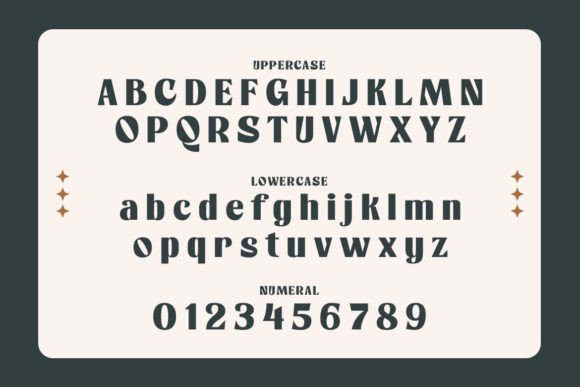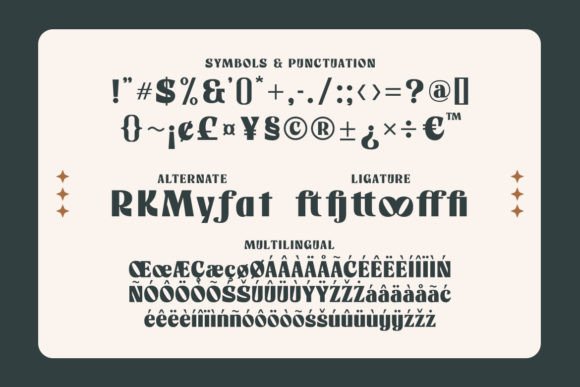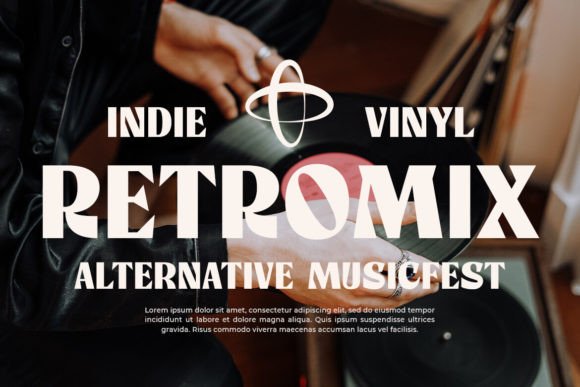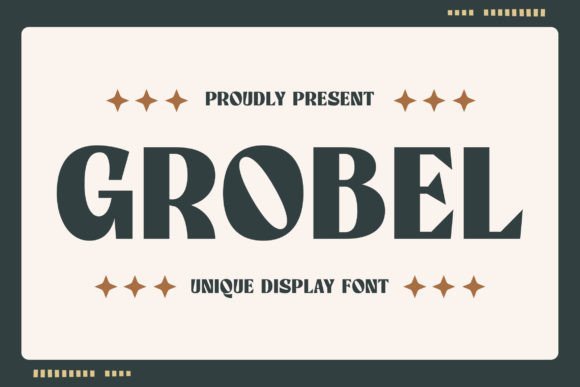
Introduction to Grobel Font
Introducing β€œGrobel” – a unique display font that captivates with its distinctive personality and creative flair, offering endless possibilities for your design projects.
With its unconventional letterforms and artistic details, β€œGrobel” stands out as a truly original typeface that adds a touch of individuality to any design Whether you’re crafting logos, posters, packaging, or website headers, this font brings a sense of creativity and innovation to your projects.
Grobel Font offers exceptional quality and versatility, making it a valuable addition to your design toolkit. Whether you’re creating for personal projects or commercial use, Grobel Font delivers professional results.